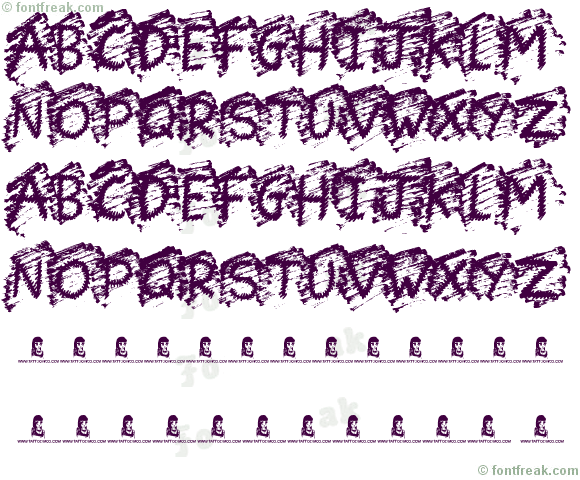
Car Wash
About Car Wash
The Car Wash font by Jonathan S. Harris is a distinctive display typeface that captures the essence of dynamic and energetic design. Characterized by its bold, textured strokes, this font showcases a unique, somewhat rugged aesthetic that resembles the playful chaos of a car wash experience. With a medium stroke weight and a raw, hand-drawn quality, the Car Wash font exudes an informal yet eye-catching charm, making it ideal for various creative applications.
The visual characteristics of the Car Wash font include uneven spacing and an organic flow that adds character and depth. The decorative elements evoke a sense of movement, reminiscent of splashes and drips, which can be particularly engaging for viewers. This makes the font suitable for projects that require a lively and engaging visual appeal.
Ideal use cases for the Car Wash font include designing promotional materials for car washes or automotive businesses, creating eye-catching posters for events, and crafting playful graphics for youth-oriented brands. Its energetic style also lends itself well to music festival flyers and casual restaurant menus, where a fun and inviting tone is desired. Graphic designers, small business owners, and content creators will find the Car Wash font particularly useful for projects that aim to capture attention and convey a sense of fun.
What sets the Car Wash font apart is its ability to blend creativity with a sense of authenticity. Its unique style not only draws attention but also evokes a sense of joy and excitement, making it a fantastic choice for those looking to infuse their designs with personality. With a Car Wash font free download available, you can easily incorporate this vibrant typeface into your next project and stand out in a crowded visual landscape.